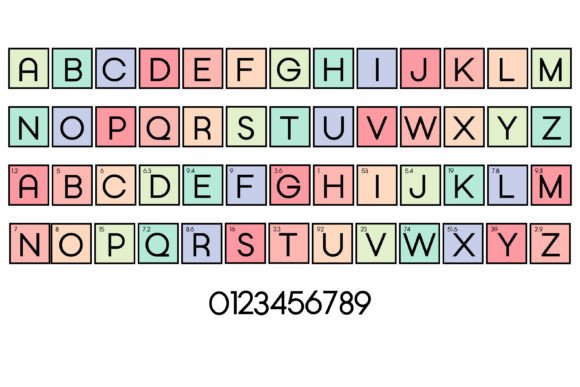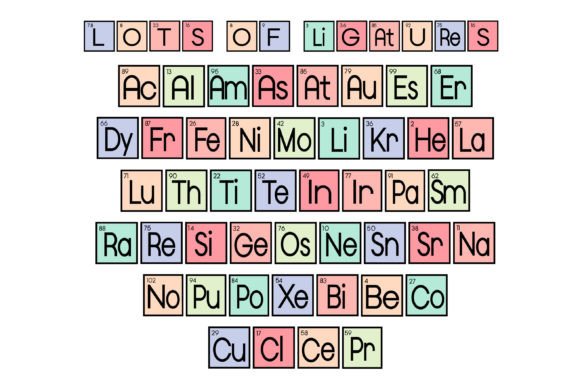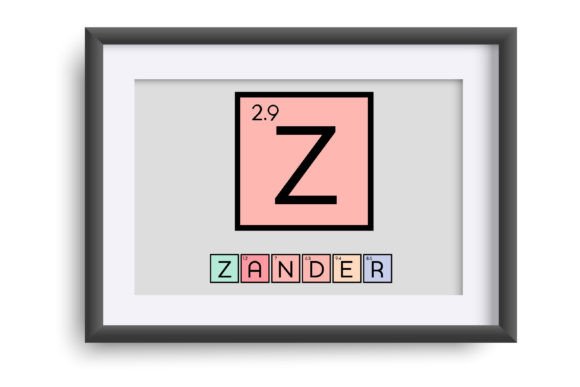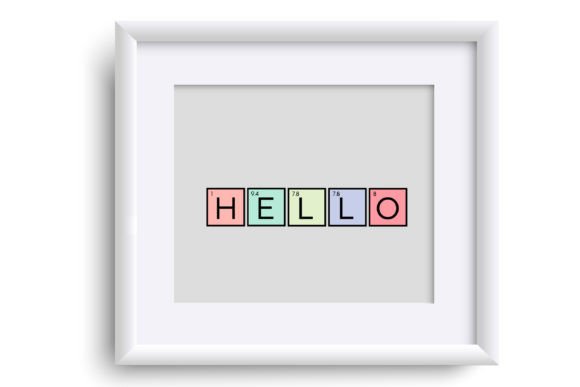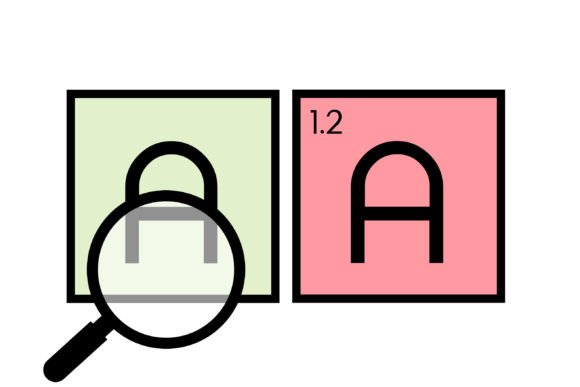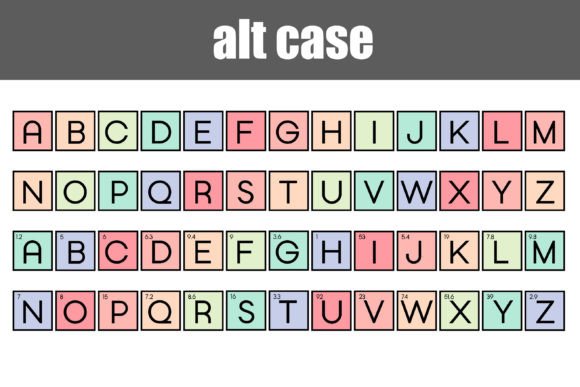
Introducing the Atomic Numbers Font: A Unique and Colorful Addition to Your Design Toolbox
Are you a designer or crafter looking for a font that adds a touch of personality and whimsy to your projects? Look no further than the Atomic Numbers Font, a full-color font that features the periodical table of elements in a unique and visually striking way. This font is perfect for anyone who loves science, chemistry, or simply wants to add a bit of geek chic to their designs.
What Makes the Atomic Numbers Font So Special?
The Atomic Numbers Font is a one-of-a-kind font that combines functionality with aesthetic appeal. Here are some of its key features:
- The font features the periodical table of elements, making it a great choice for science enthusiasts and educators.
- The lowercase letters display the atomic weights of the elements, adding an extra layer of detail and accuracy.
- The uppercase letters do not display atomic weights, providing a clean and simple contrast to the lowercase letters.
- The font includes many ligatures that represent real elements, such as “Li” in the word “Ligature”.
- An alternate version of each letter in a different color is available through the system character map, allowing for even more creative possibilities.
Adding a Touch of Personality to Your Designs
The Atomic Numbers Font is the perfect way to add a touch of personality and whimsy to your designs. Whether you’re creating:
- Signs and posters for a science museum or educational institution
- Custom stationery or invitations for a science-themed party
- Social media graphics or blog posts about science and chemistry
- Custom crafts or DIY projects, such as jewelry or decorations
The Atomic Numbers Font is sure to make your designs stand out and spark some interest. So why settle for a boring, generic font when you can add a bit of atomic flair to your creations?
The Atomic Numbers Font is a unique and versatile addition to any design toolbox. With its colorful and detailed representation of the periodical table of elements, this font is sure to delight science enthusiasts and designers alike. Whether you’re creating educational materials, custom crafts, or simply want to add a bit of personality to your designs, the Atomic Numbers Font is the perfect choice.
So go ahead, get creative, and add a touch of atomic style to your next project!